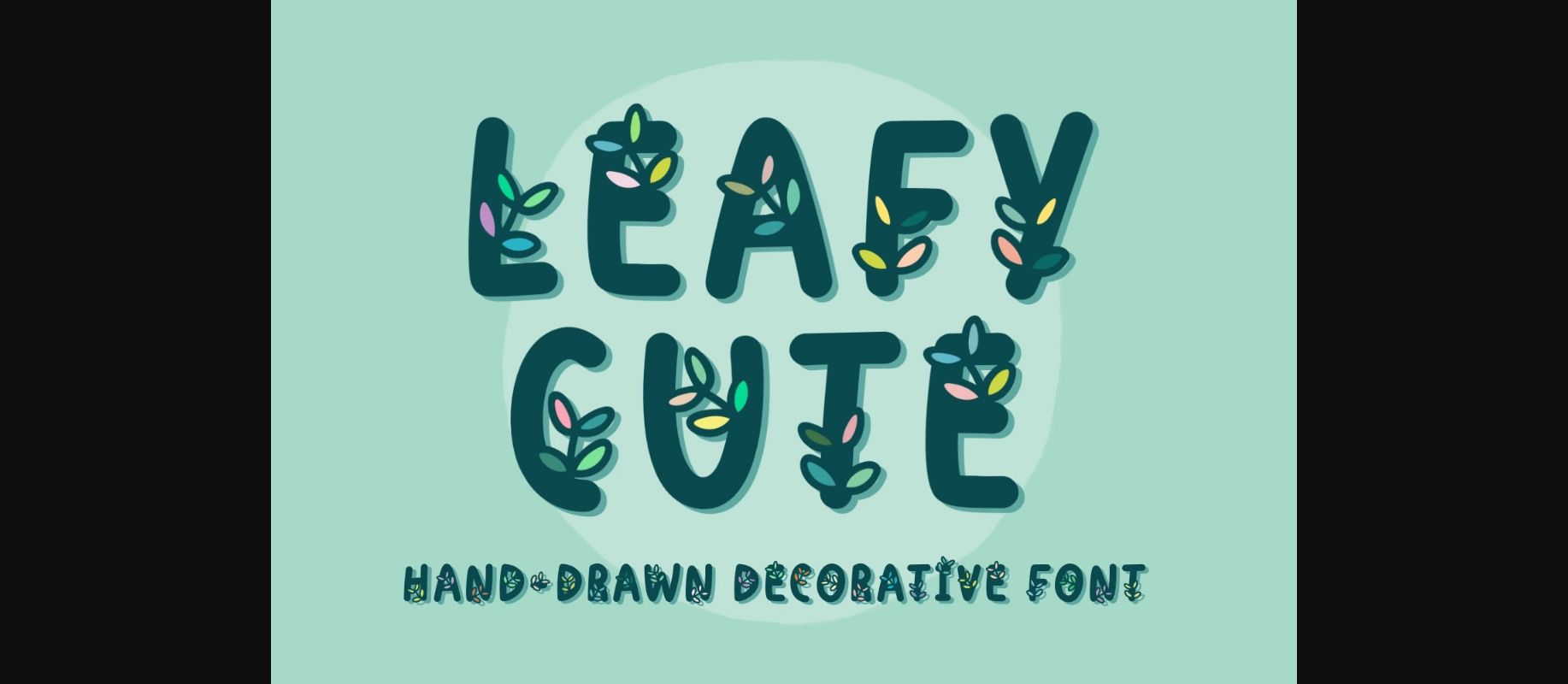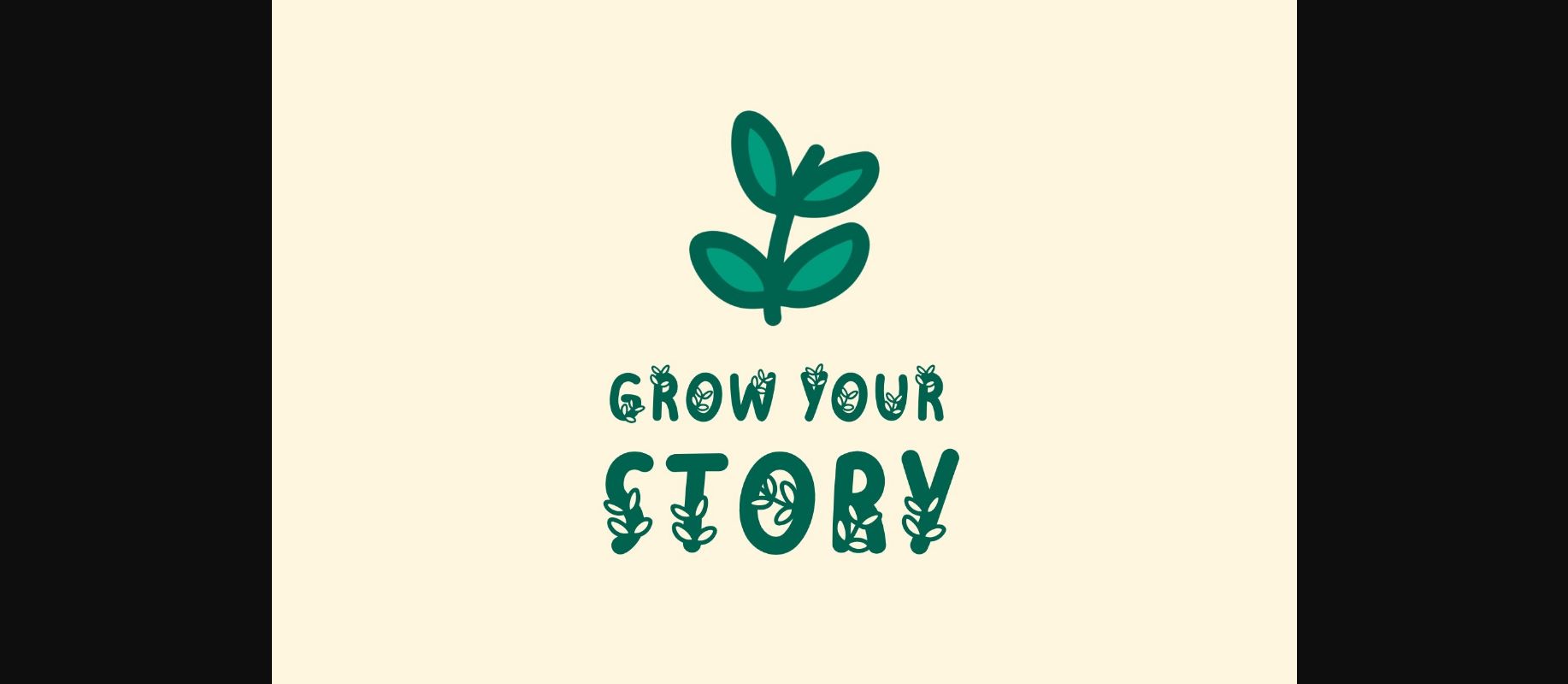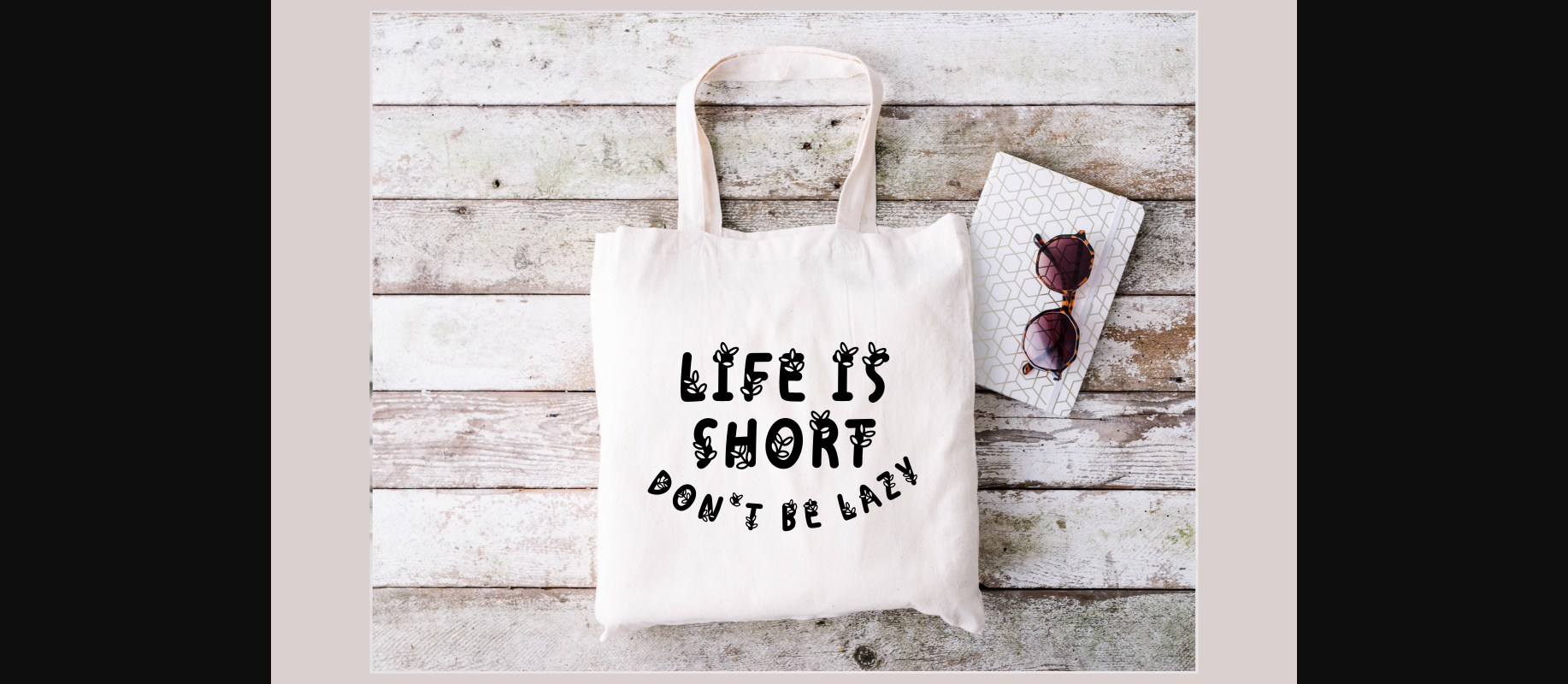
About Leafy Cute Font
Leafy Cute is a cute fun hand-drawn all-caps font with leaf decorations. You can use this font in various projects – blog posts, logos, branding, digital planners, invitations, greeting cards, planners, photo albums, decorations, and much more.